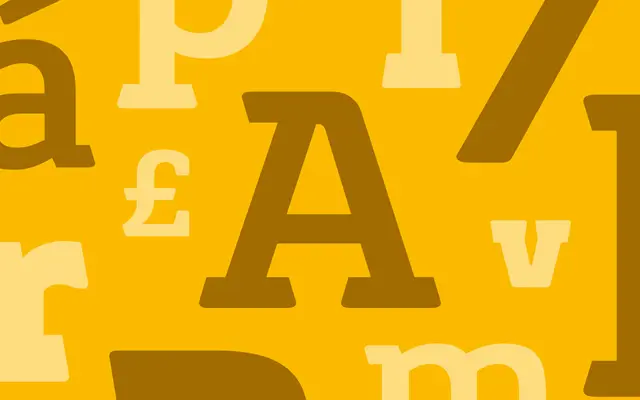
Grueber
Dalton Maag · Lukas Paltram · 2025
A robust slab-serif display by Lukas Paltram, drawn from Austrian architect Paul Grueber's lettering and pushed further by quirky alternates.
A slab-serif display by Lukas Paltram that takes its cues from drawings by Austrian architect Paul Grueber. Dalton Maag describes it as a compact family with a strong tone of voice, amplified by expressive alternates. Sits well on posters, packaging and identity work that wants architectural weight without losing personality.
Dalton Maag classifies Grueber as a robust slab-serif display typeface inspired by drawings of Austrian architect Paul Grueber, with quirky expressive alternates that amplify its tone.